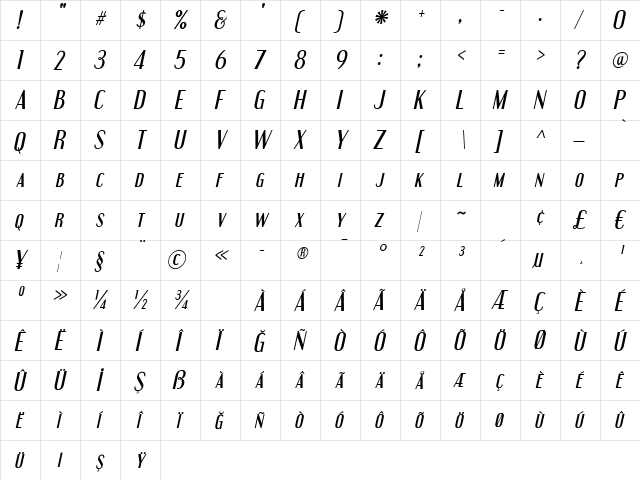
TrSah Engebrechtre Italic
Design Context for TrSah Engebrechtre Typeface
TrSah Engebrechtre is a composed and adaptable typeface that performs quietly and consistently across a wide range of design contexts. The dynamic lean of this cut emphasises speed and emphasis in any layout.
Pro Tip: Try TrSah Engebrechtre for annotation and caption copy alongside an upright companion — the contrast in angle creates a dynamic but ordered typographic system.